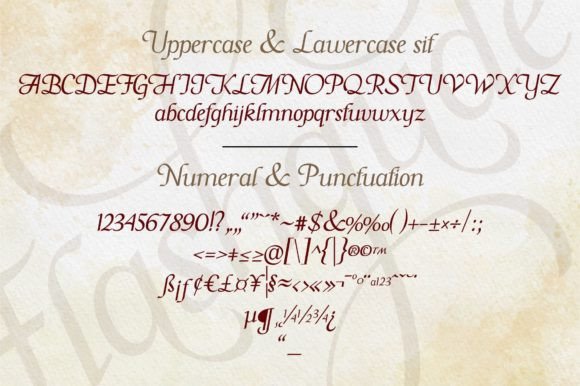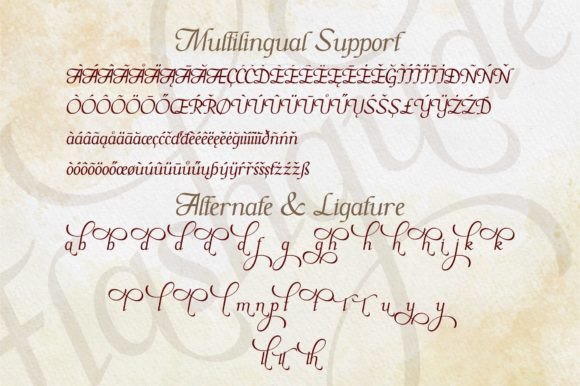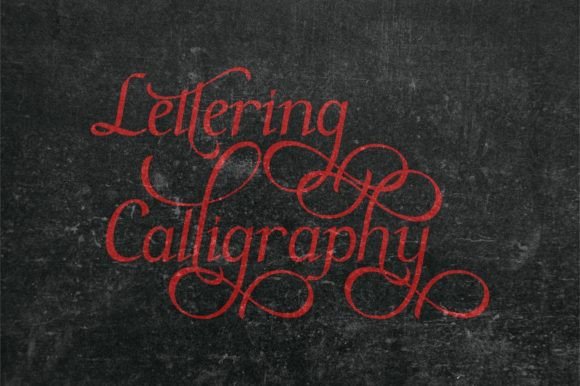
Introduction to Flashgude Font
Flashgude is a lovely and delicate script font that exudes elegance and class.
This font was particularly crafted for those who need a beautiful and refreshing look to their designs .